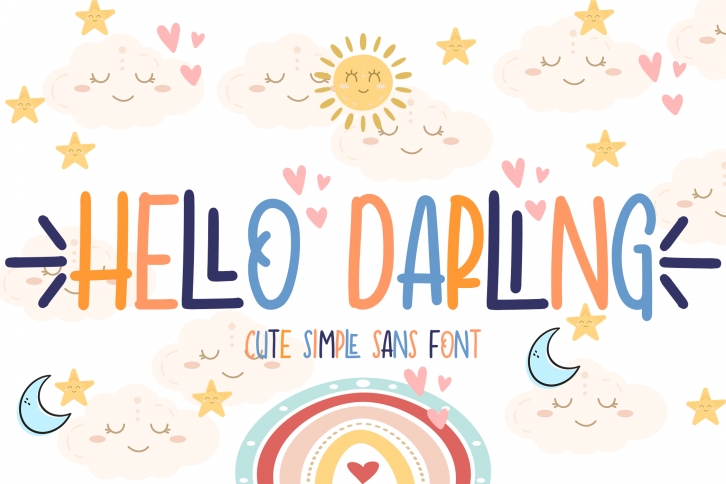
Hello Darling is a cute and simple lettered handwritten font that can be used for all chalkboard quotes or teaching material! Its authentic look will add a personal and realistic feel to your designs